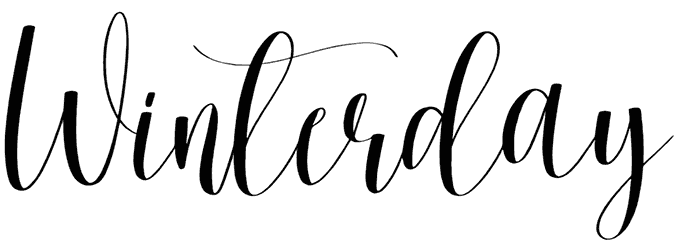
Ranchino Script Font
It’s usually not that easy to find a calligraphy font that can keep the text clear, but here is Ranchino Script, doing exactly that. How can you care about the missing numbers when it’s so good at bringing elegance into your artwork?
Plus, there are a few different styles you can try before making up your mind. That’s all the more reason you should be considering this cursive font for your poetry books, wedding cards, fancy business cards, and more.
Ranchino Script’s flowing character is one of care, precision, and the timeless beauty of calligraphy.
Designed by: Mans Greback